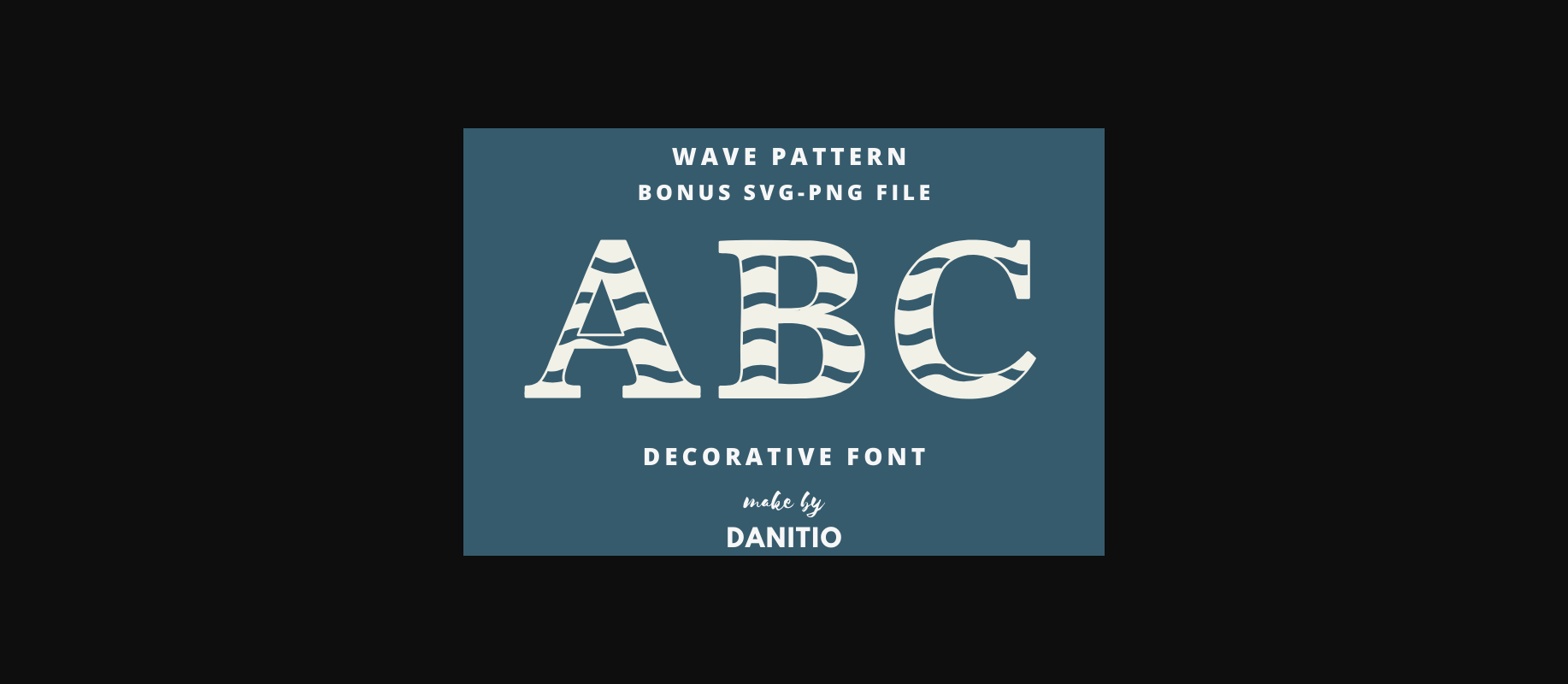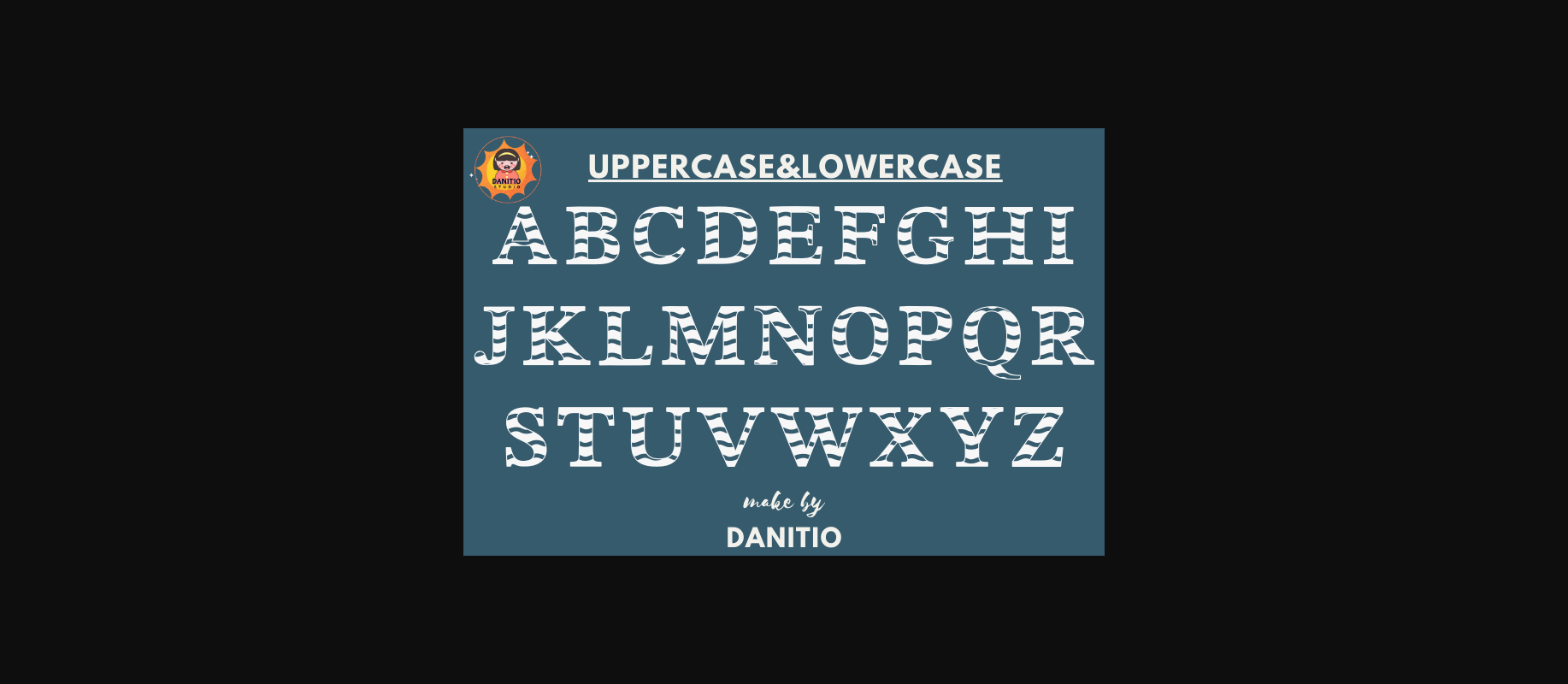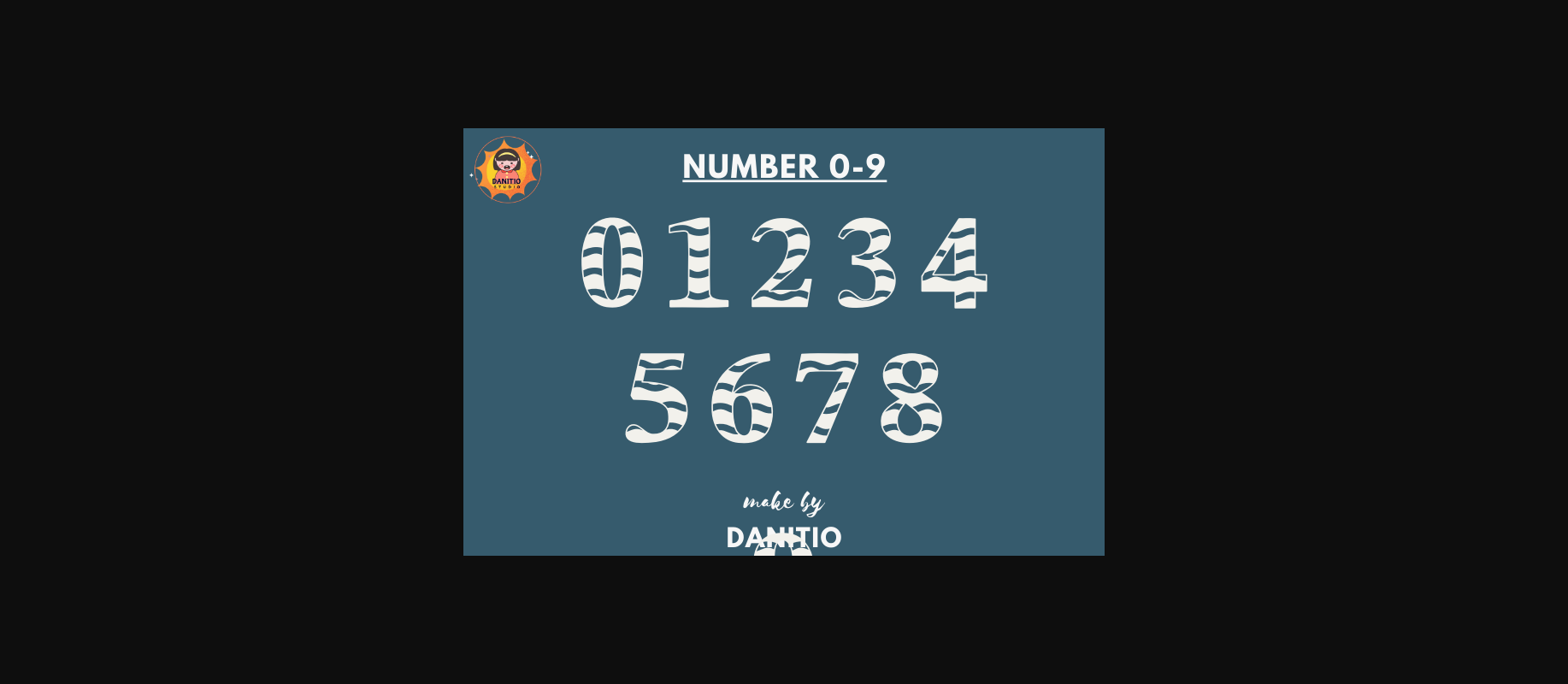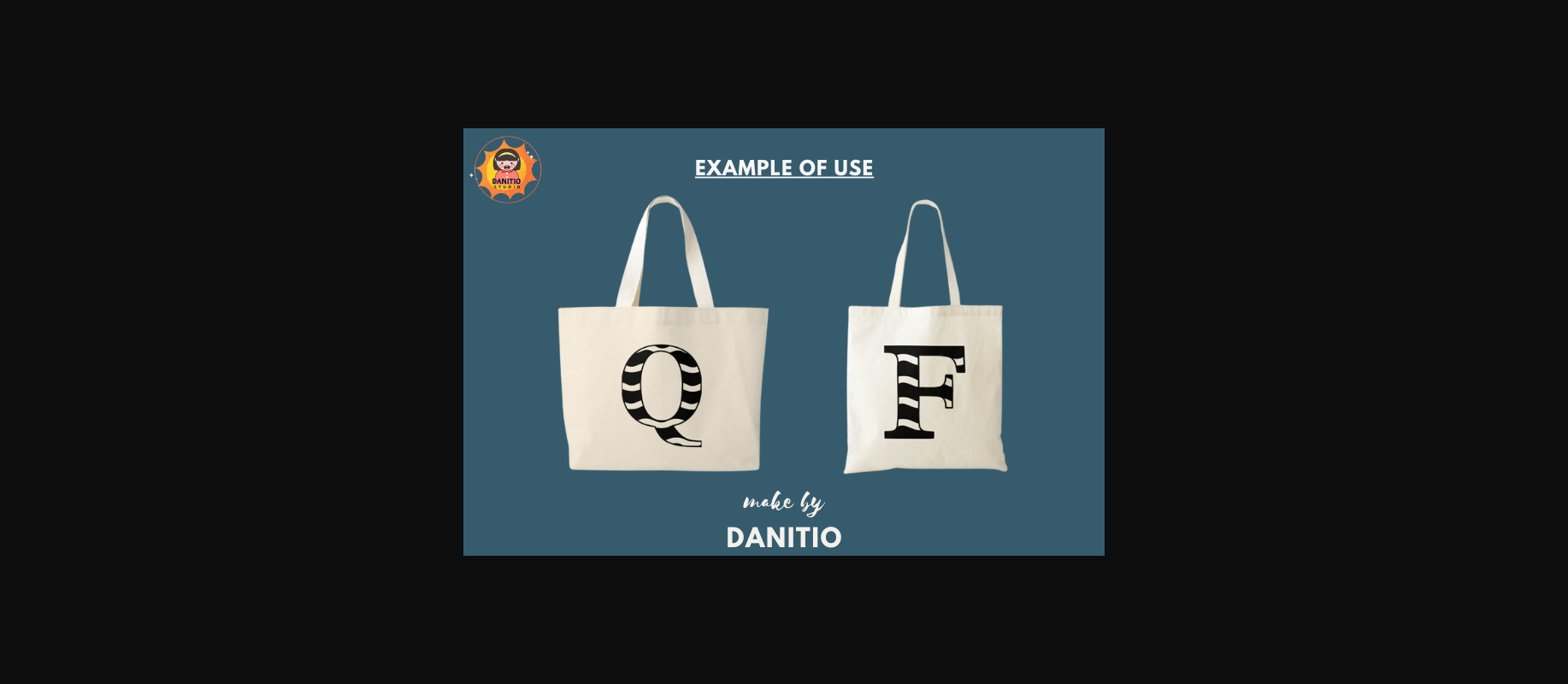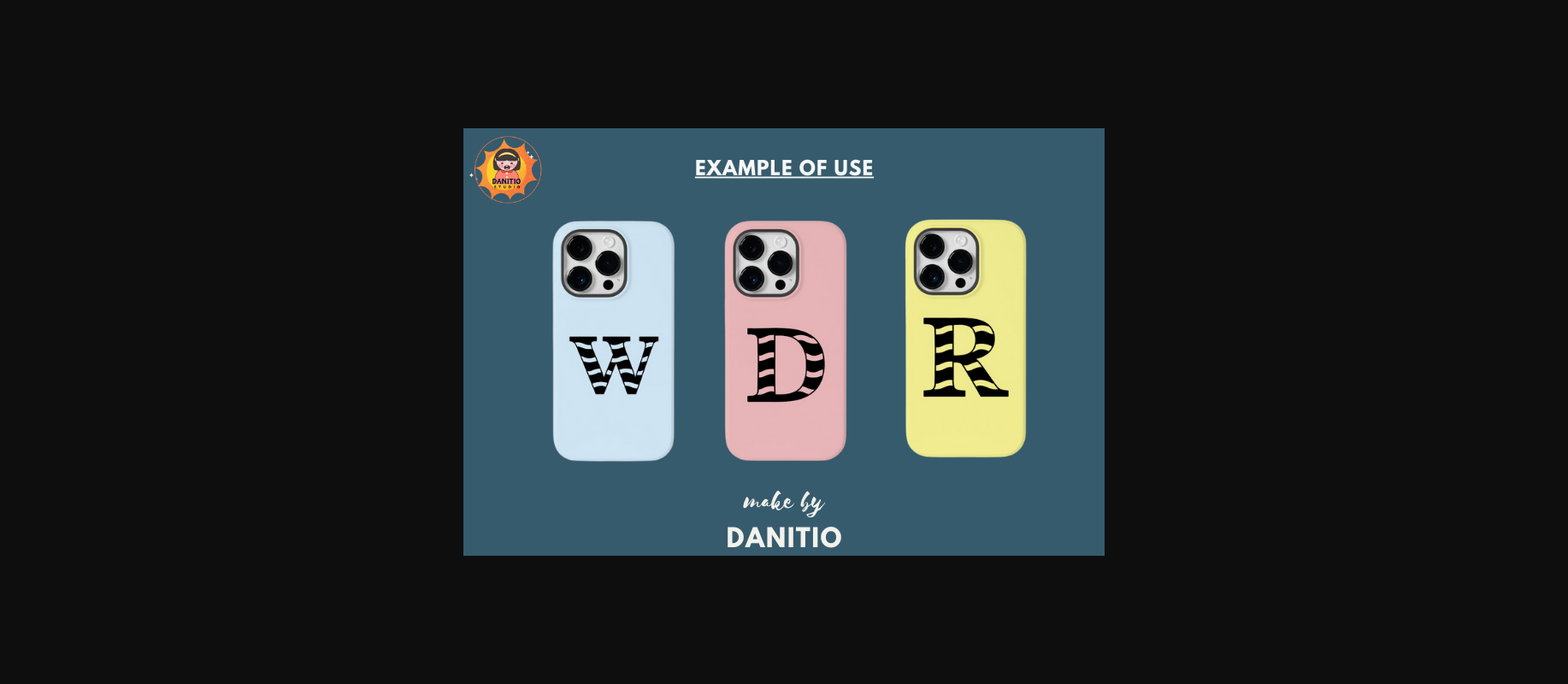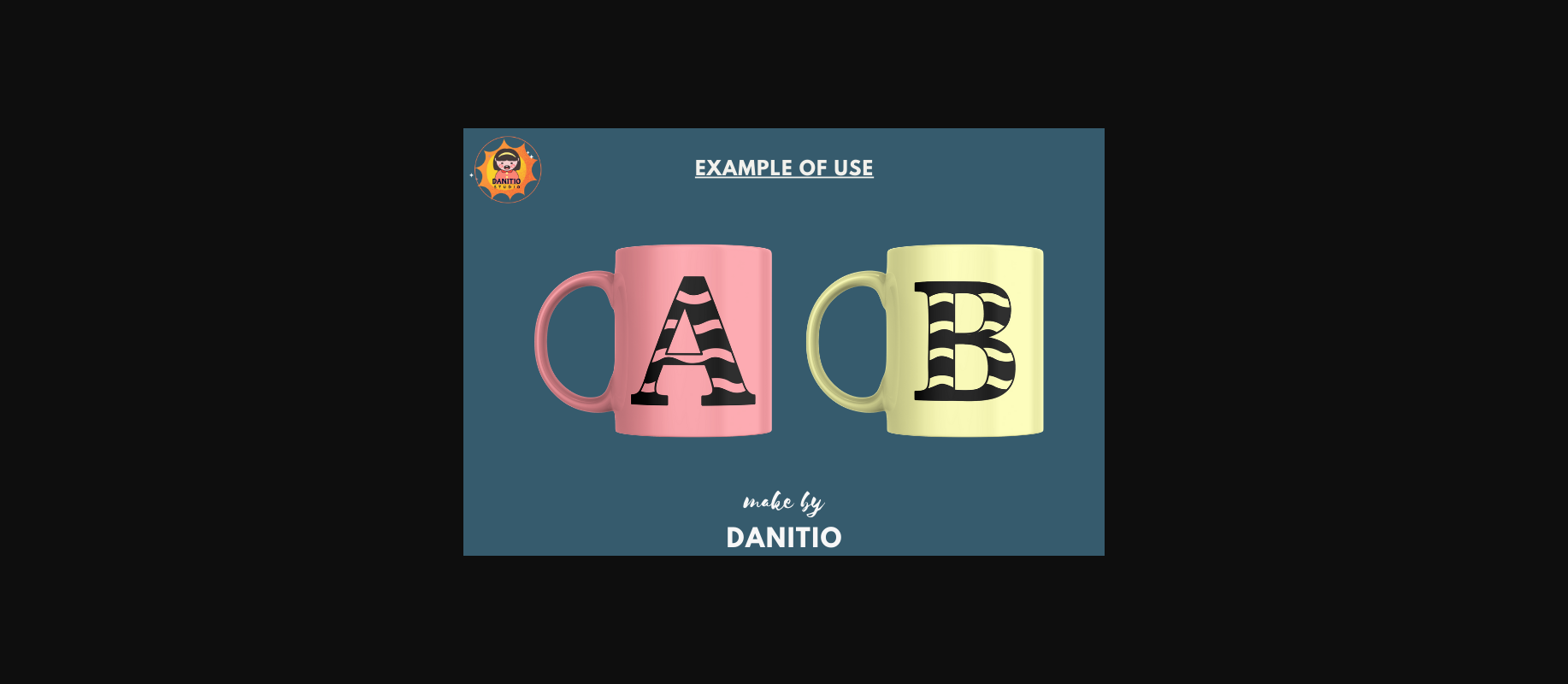
About Wave Pattern Font
The Wave Pattern is a decorative font that is a combination of waves and letters. that switches up and down which makes any design Look cool and modern Suitable for various products that you think are appropriate, such as event invitation cards, stationery, mugs, tote bags, pillows, phone cases, or party decorations. I hope you enjoy my fonts.